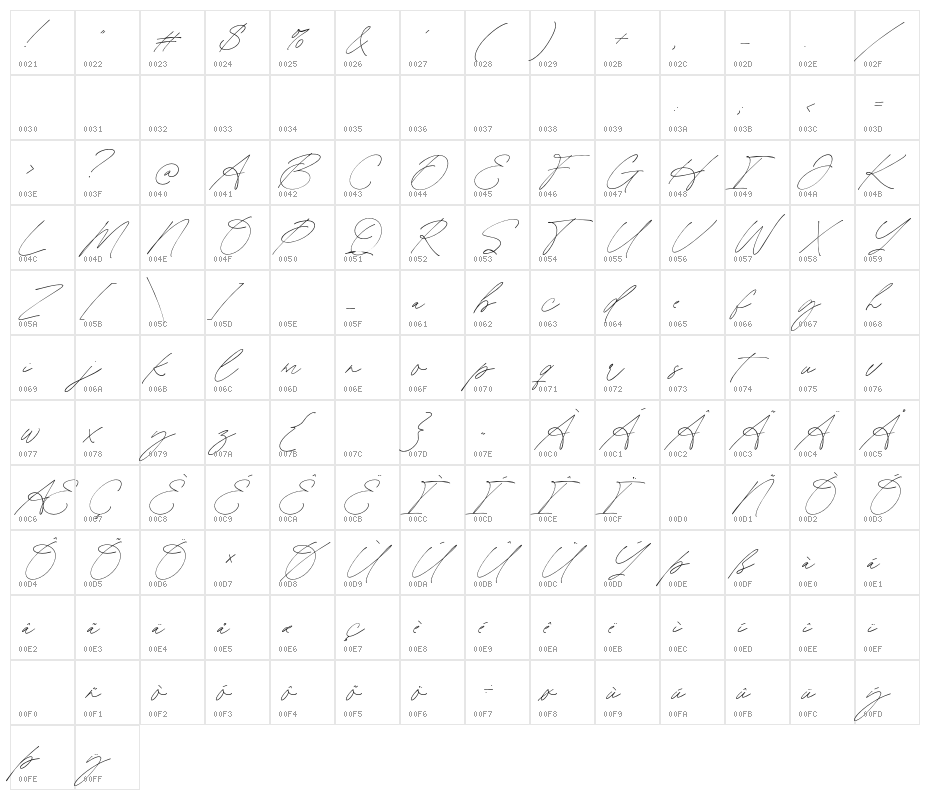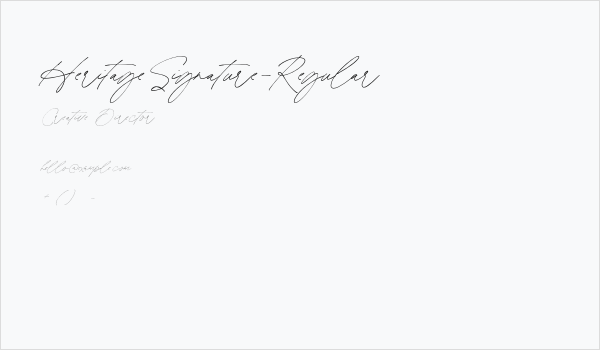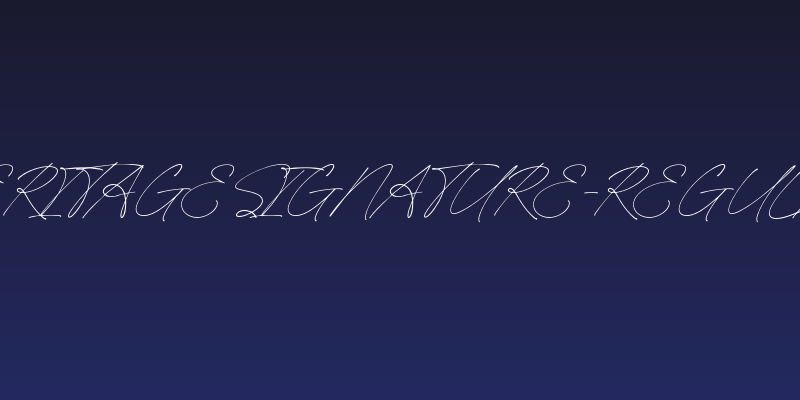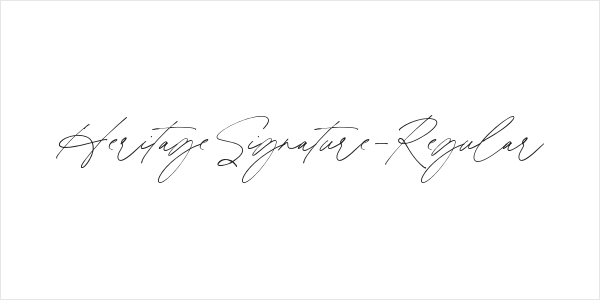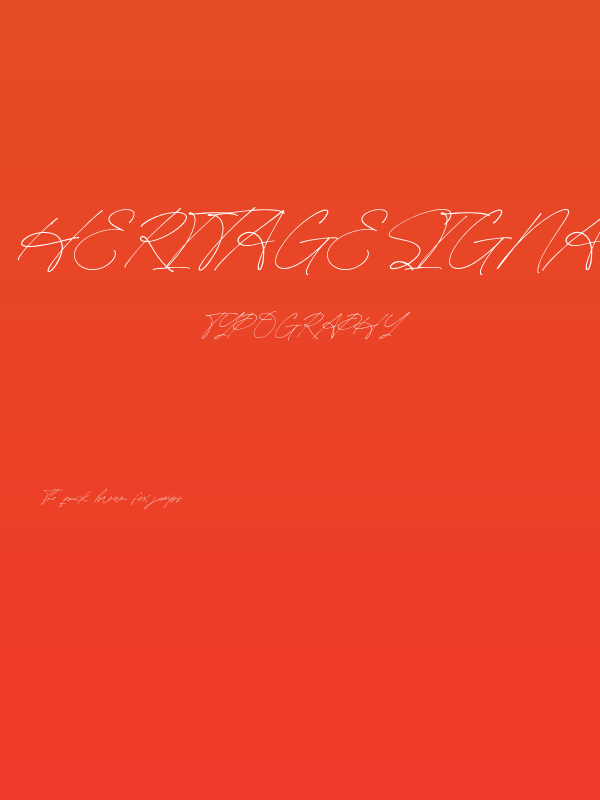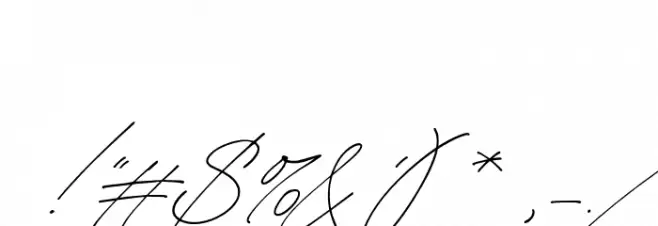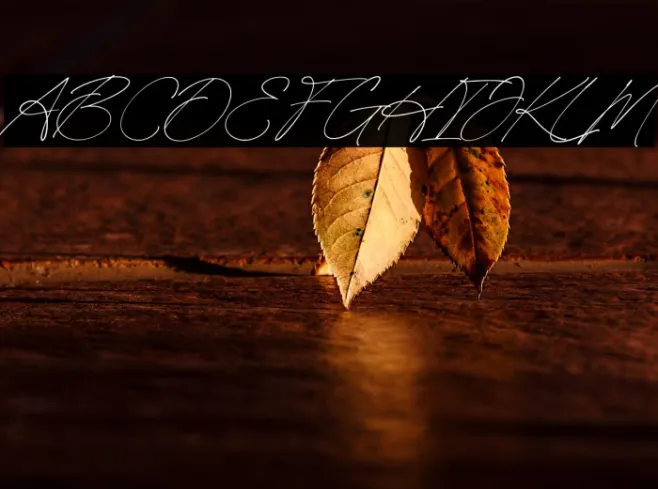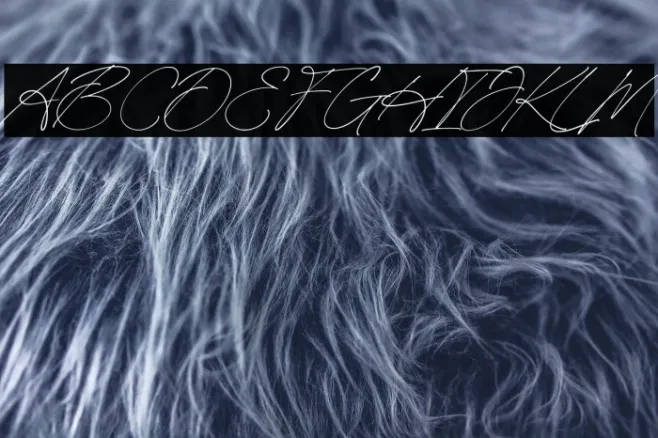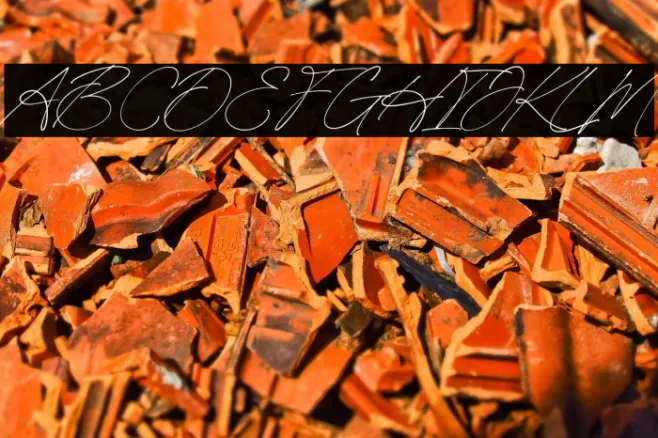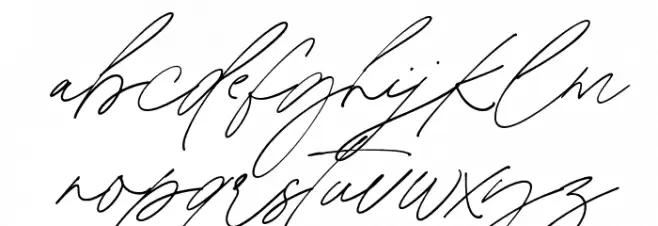
HeritageSignature-Regular Font
HeritageSignature-Regular Description
A flowing, cursive script font with elegant, connected letters, mimicking a handwritten signature style.
| Use Case | Logos, Invitations, Personal signatures |
| Proposed Projects | Invitations, branding, personal signatures. |